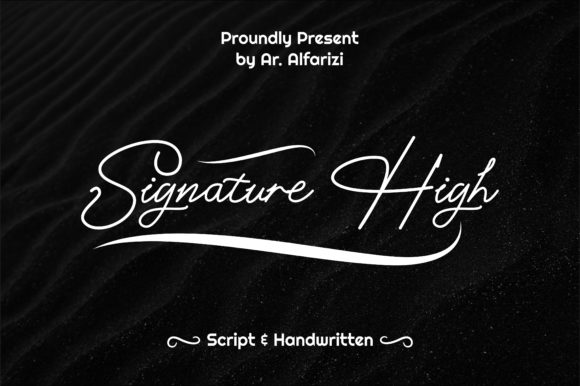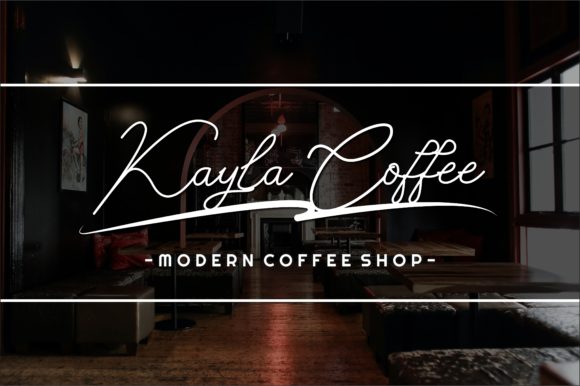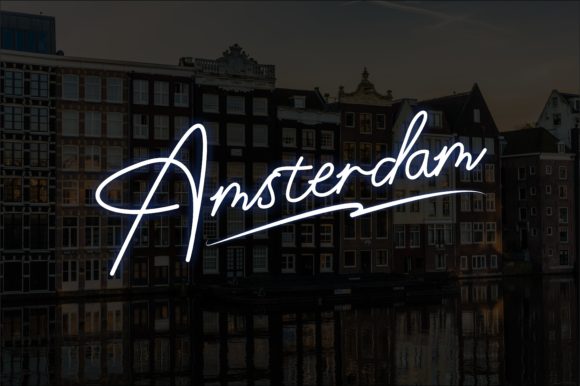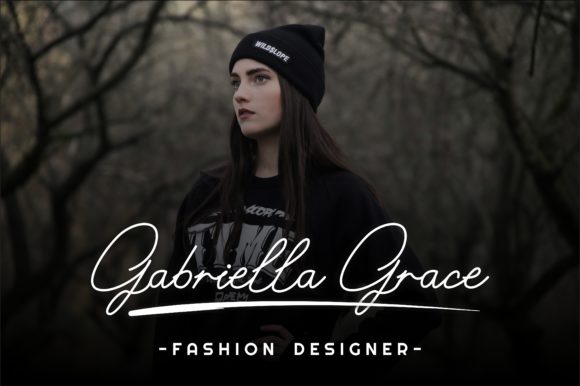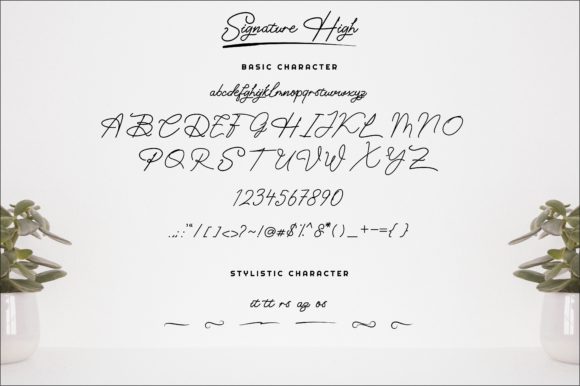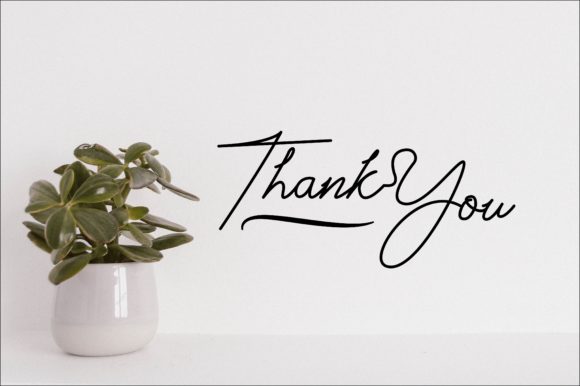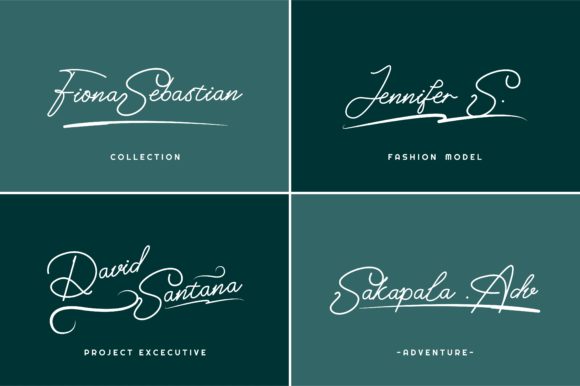
Signature High Font
About Signature High Font
Signature High is a delicate script font. It looks stunning on wedding invitations, thank you cards, quotes, greeting cards, logos, business cards, and every other design which needs a customized touch.